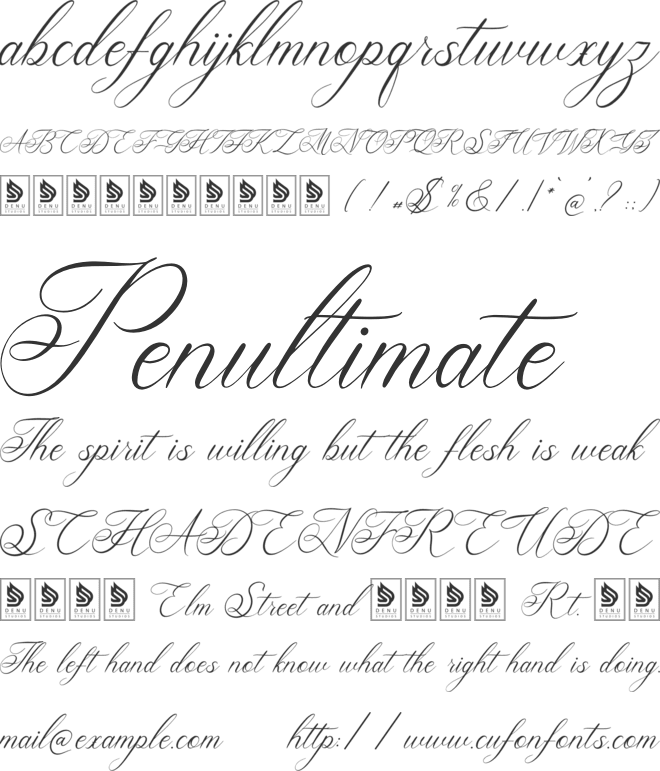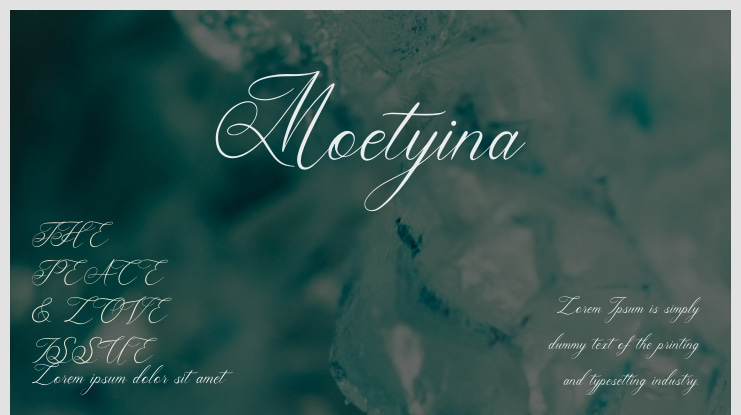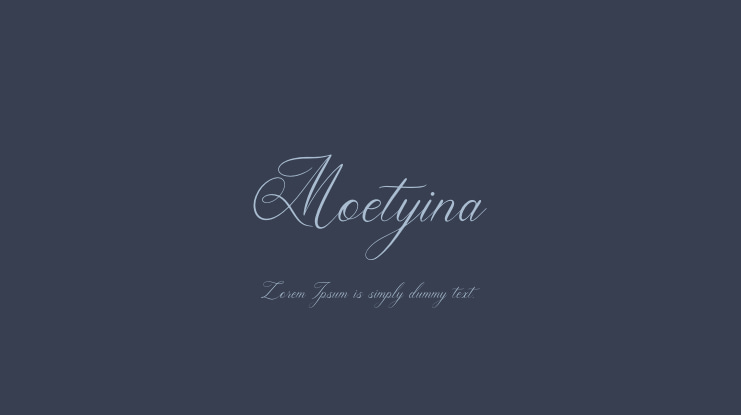
Dede Nugraha
The Moetyina Modern Calligraphy Font is perfect for various projects including logos, branding, homeware designs, product packaging, mugs, quotes, posters, shopping bags, t-shirts, book covers, name cards, invitations, greeting cards, labels, photography, watermarks, special events, and more that require a touch of Modern Calligraphy Font style.